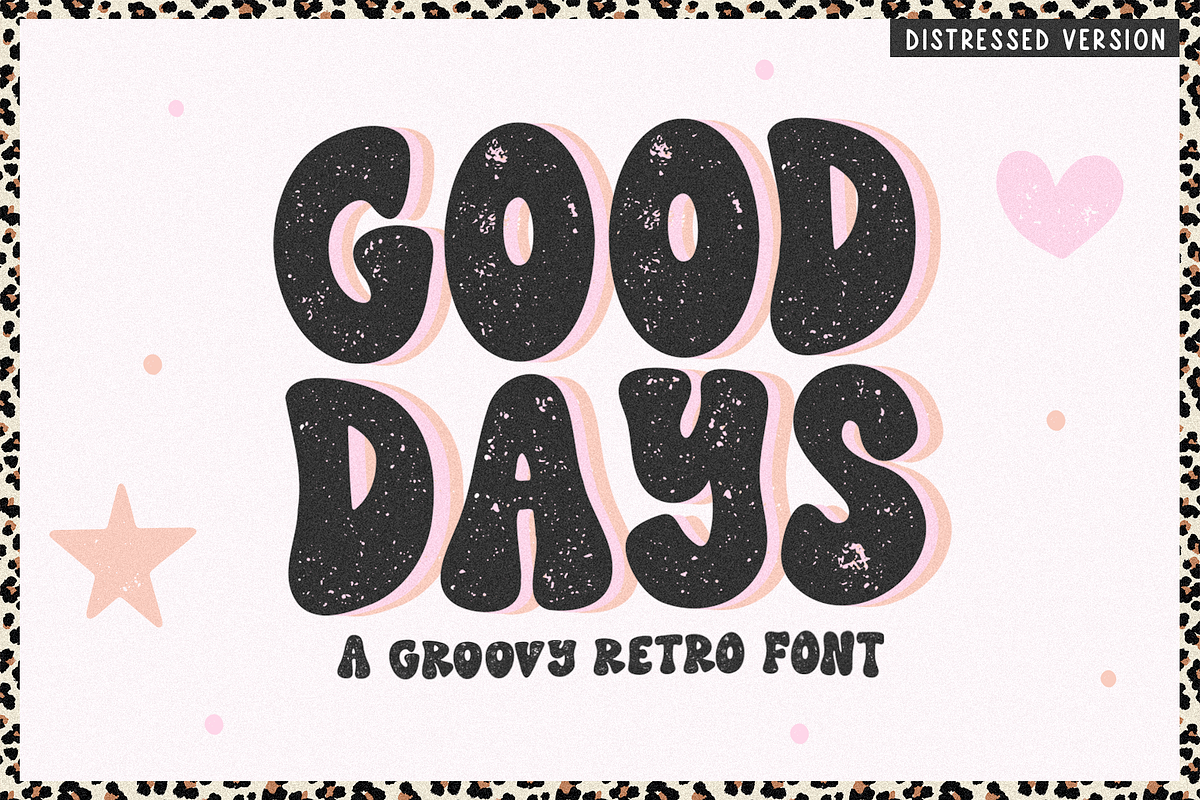
Travel back in time with Good Days Retro Distressed Font Free Download — a bold and vintage-inspired typeface that brings classic character and a touch of grit to your designs. With its textured, worn-in look, this font is perfect for retro posters, old-school branding, coffee shop menus, t-shirt designs, and nostalgic packaging.
Good Days captures the vibe of decades past, blending strong letterforms with a distressed finish for maximum visual impact. It includes uppercase characters, numbers, punctuation, and multilingual support — making it a reliable and versatile option for creative projects with attitude.